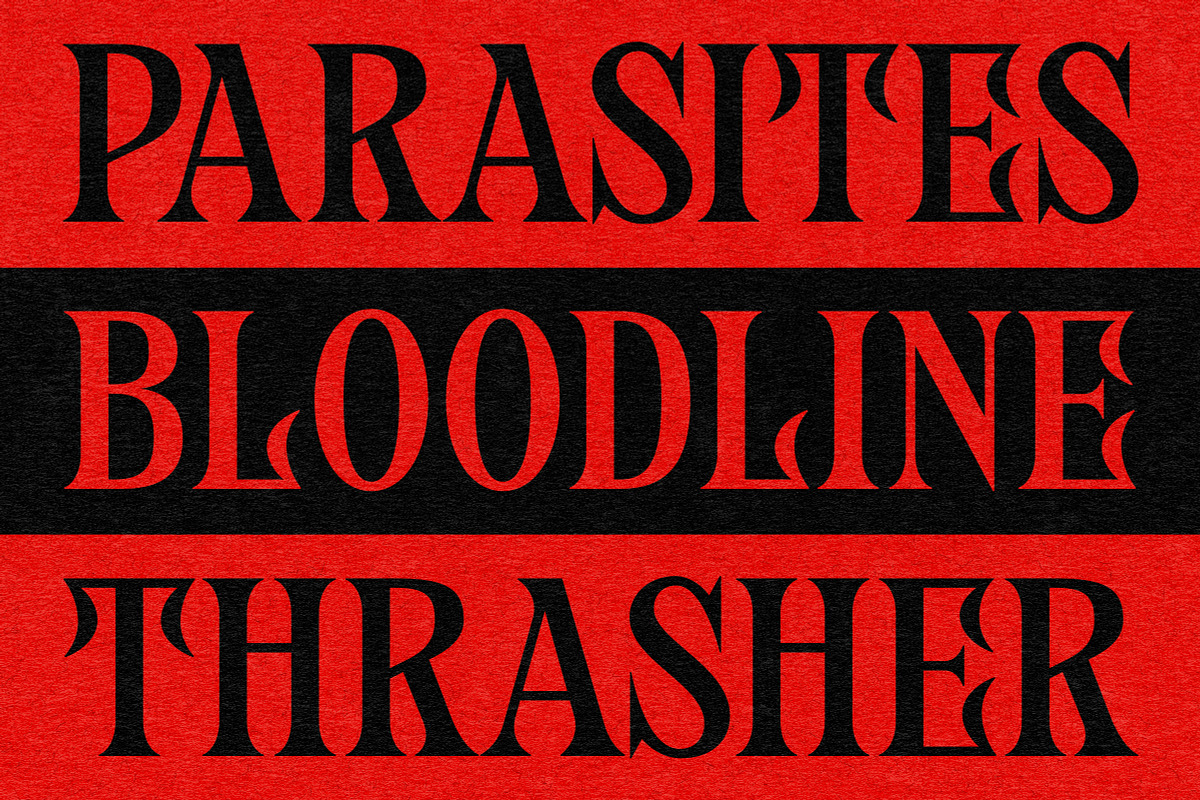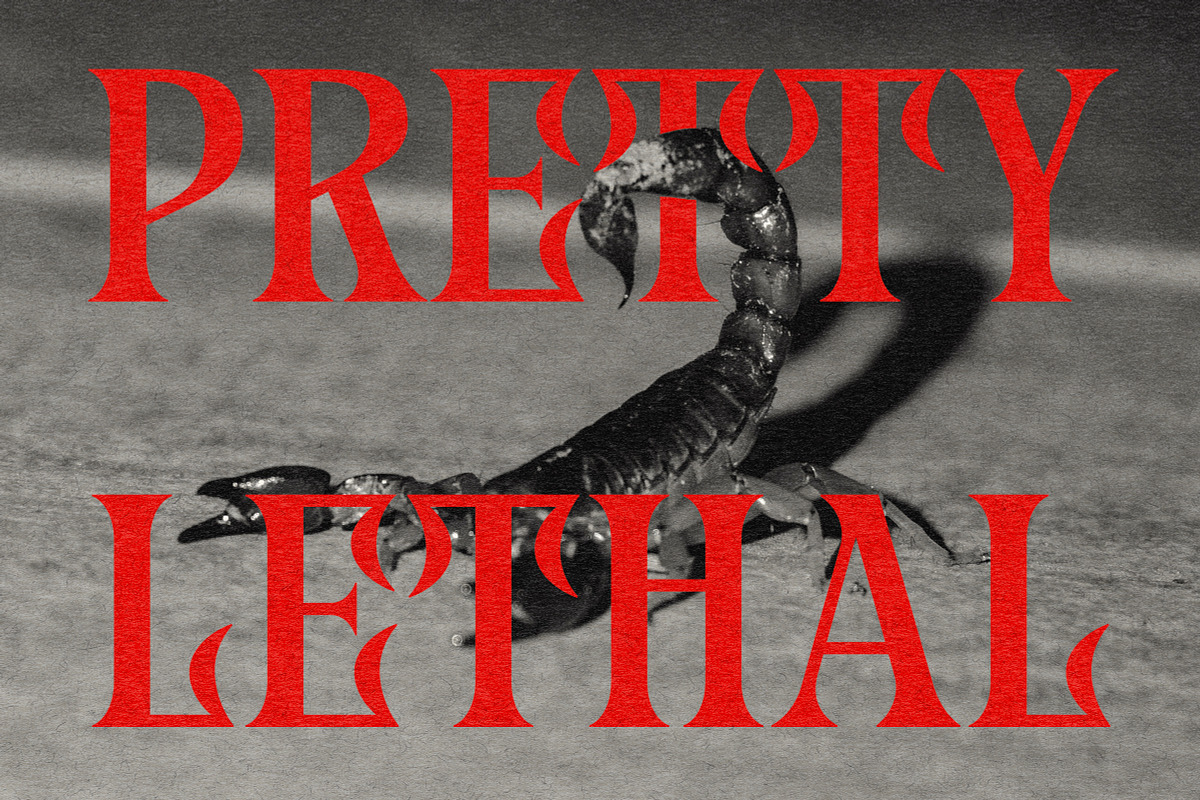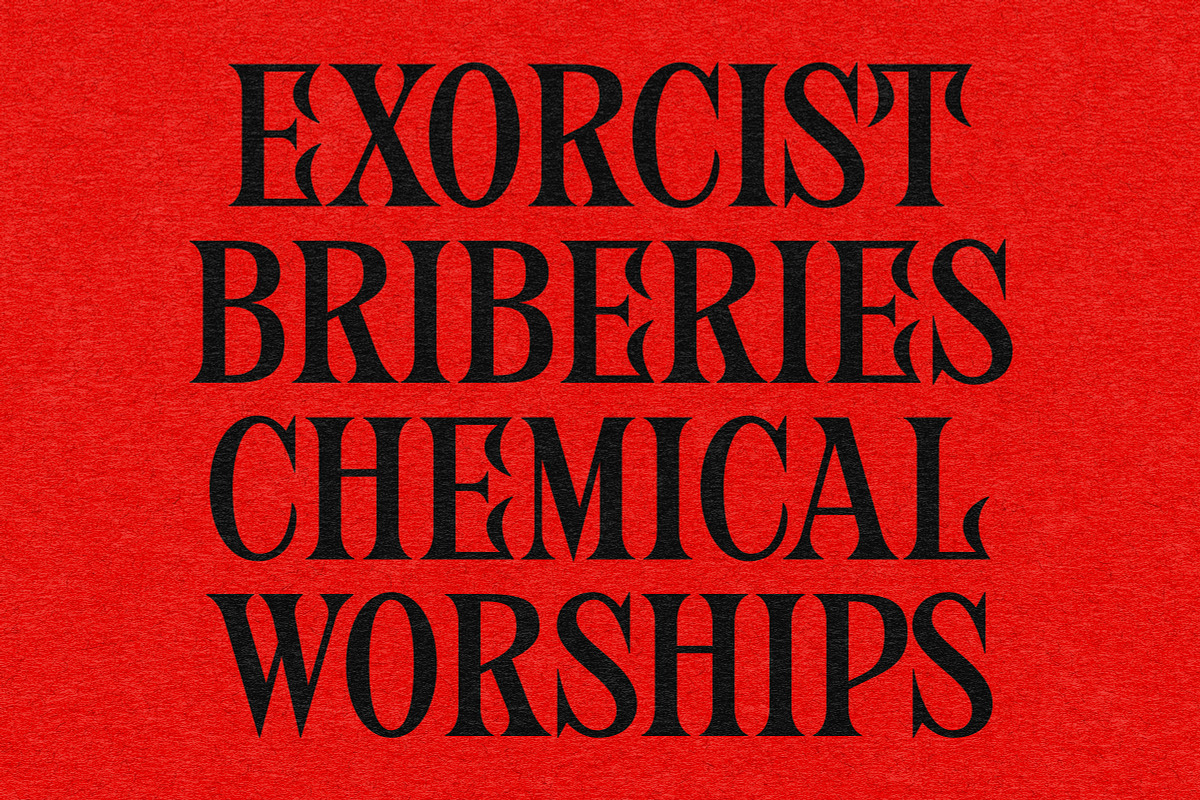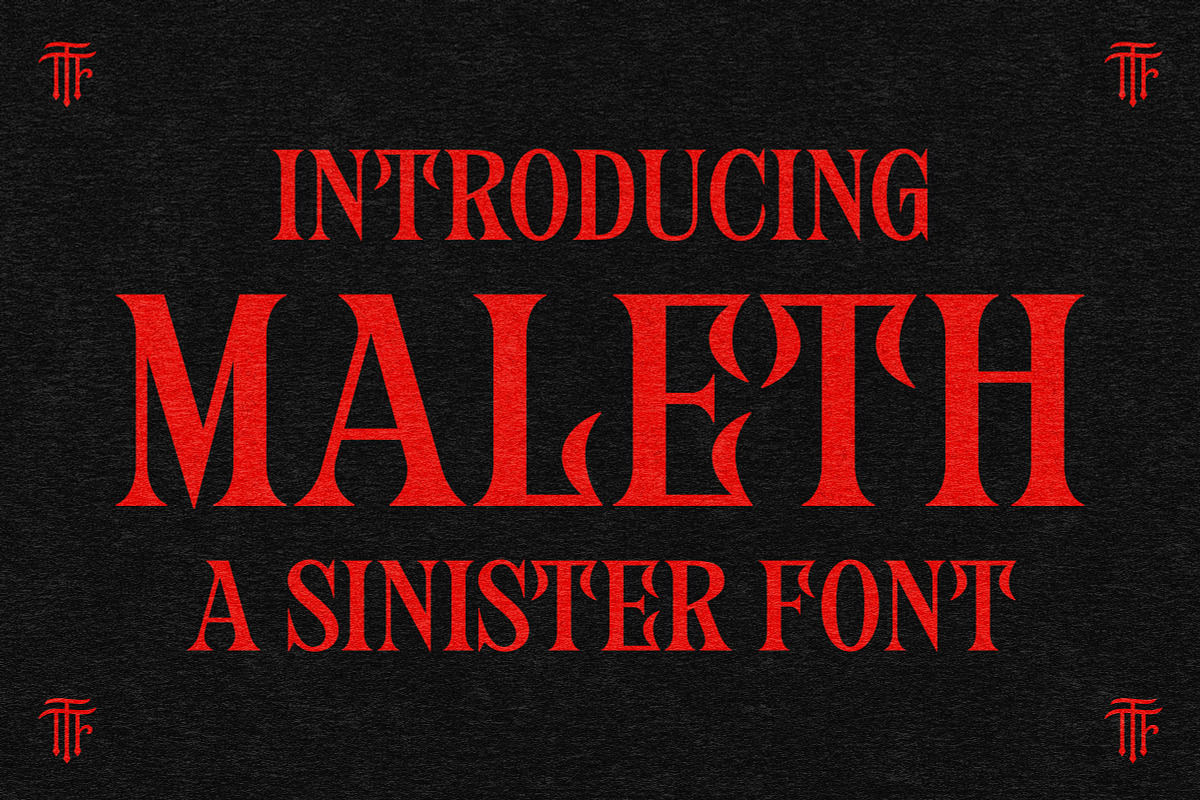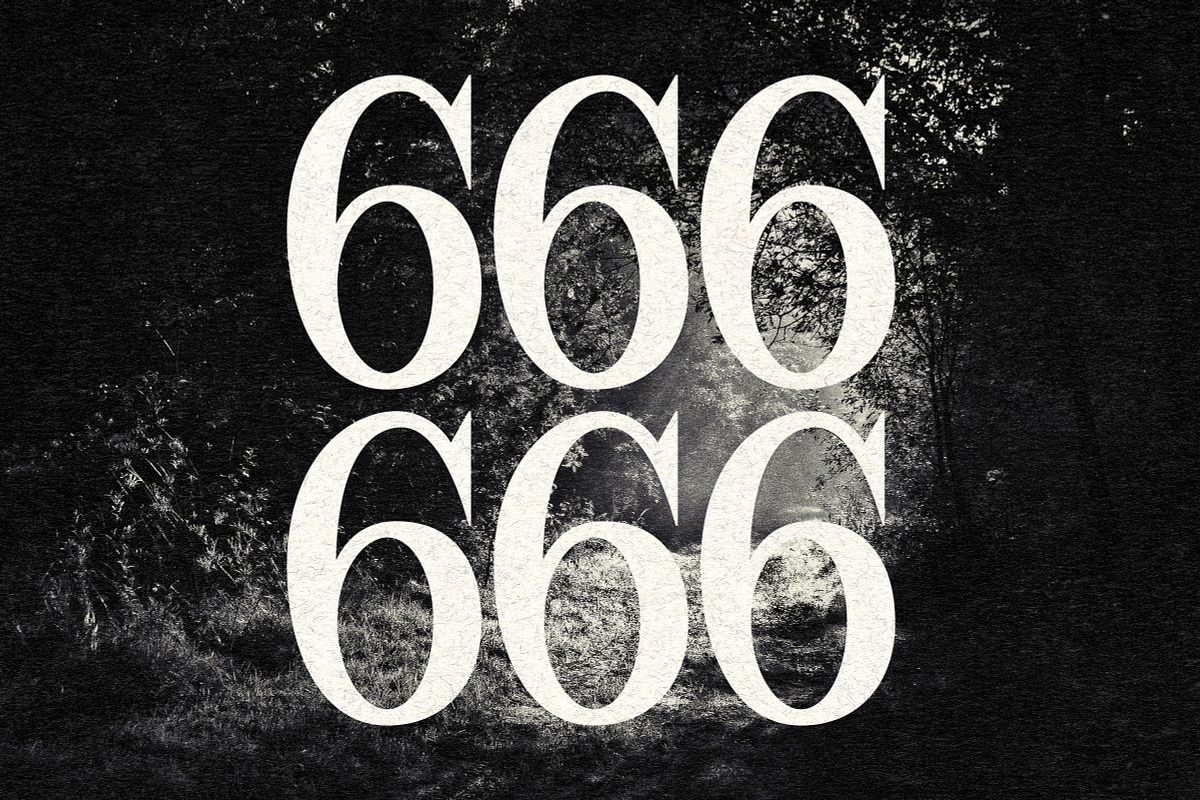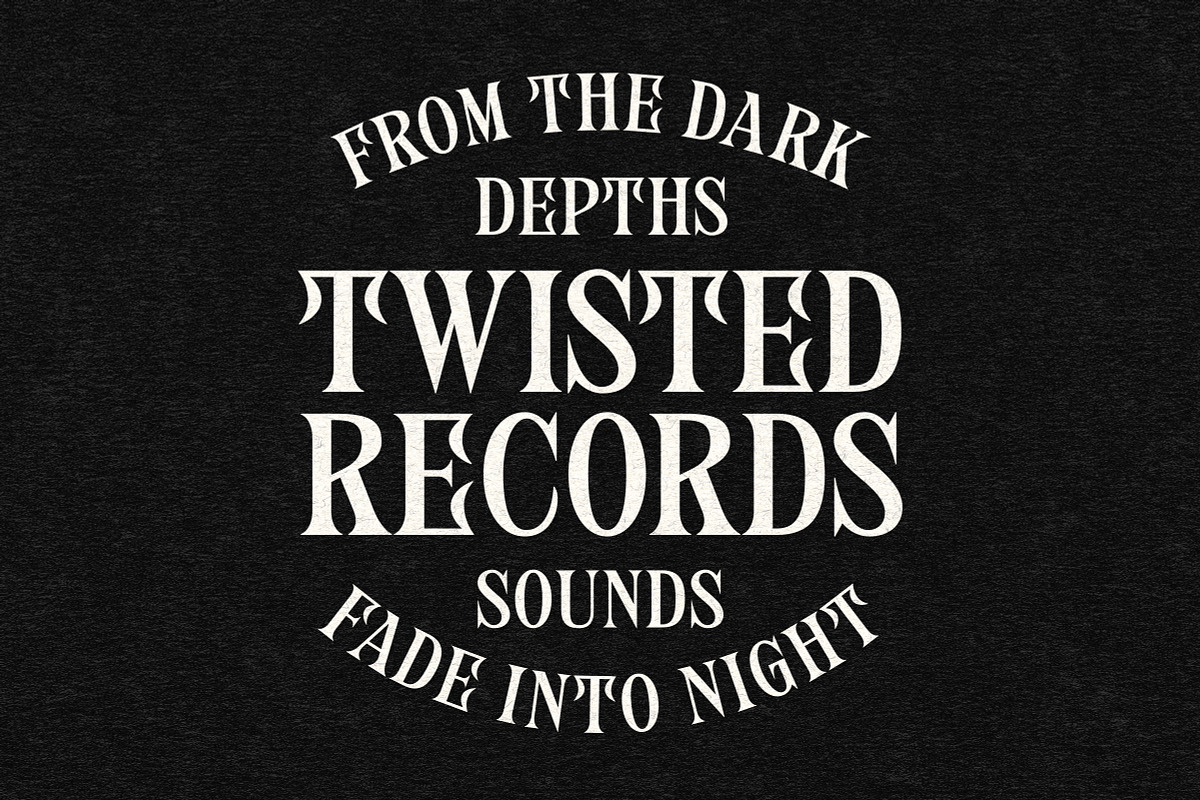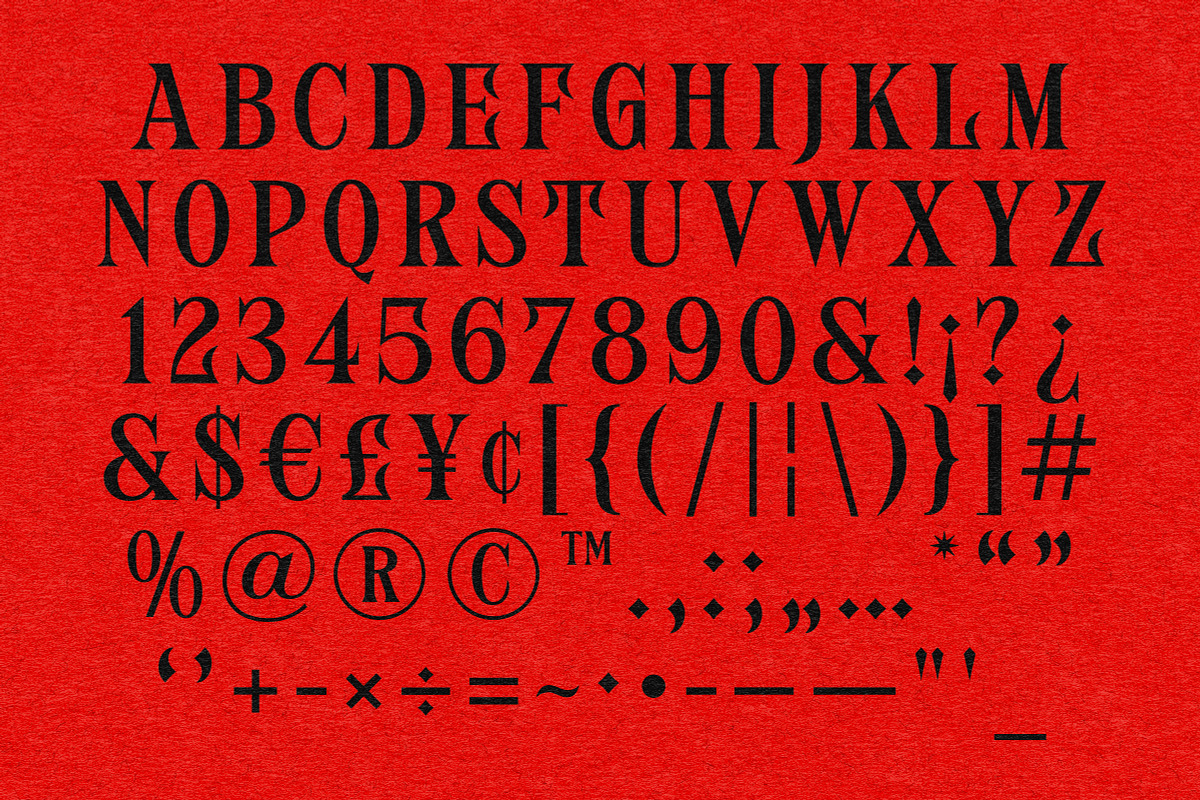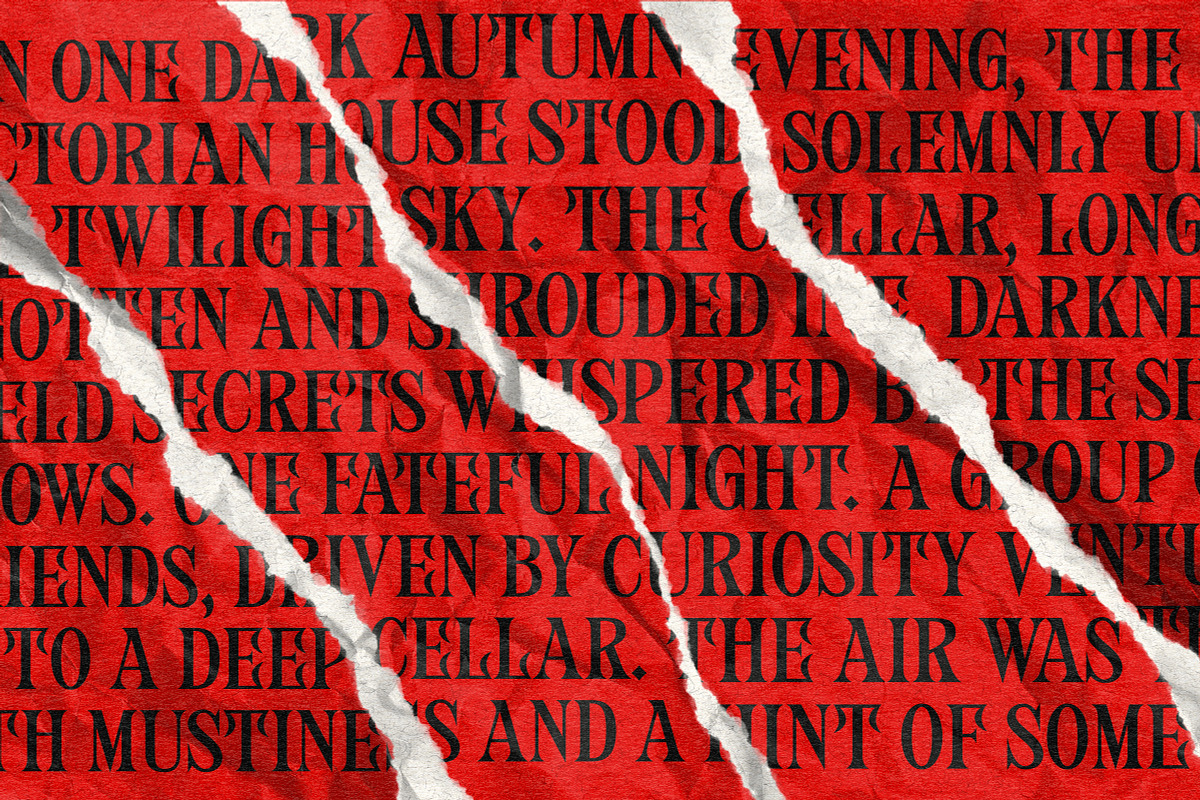
Maleth - A Classic Horror Font
Introducing Maleth, a font born from the depths of nightmares, designed to evoke pure terror. Originally inspired by the sinister sting of a scorpion’s tail, this typeface features sharp, aggressive lines that inject an unsettling edge into your projects. It works killer for posters, packaging, logos, headlines, and beyond. Let Maleth become your worst nightmare.